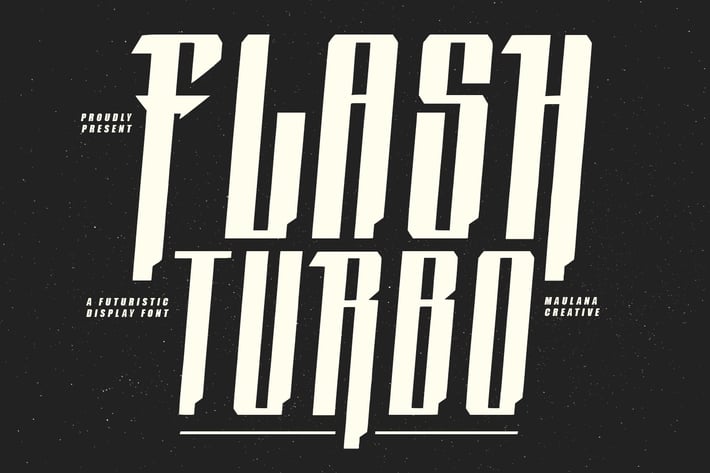
Flash Turbo Futuristic Display Font Racing Speed
Flash Turbo futuristic display font racing speed. With speed stroke, fun character with special alternates to give you an extra awesome creative work. Flash Turbo futuristic display font support a multilingual language. This font is good for logo design, Social media, Movie Titles, Books Titles, a short text even a long text letter and good for your secondary text font with script or serif. Make a stunning work with Flash Turbo futuristic display font racing speed.